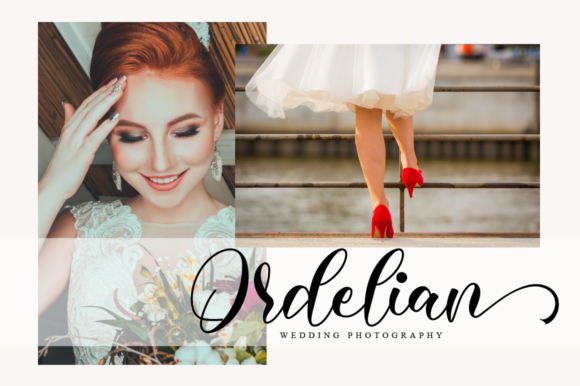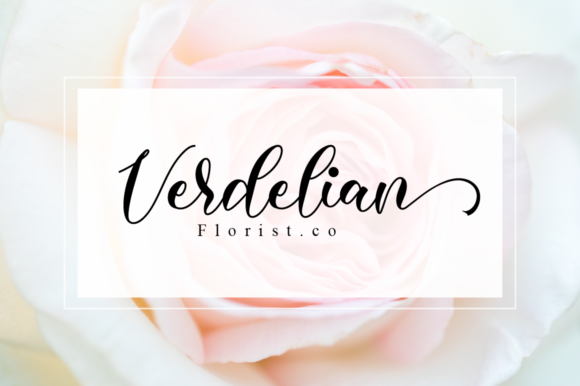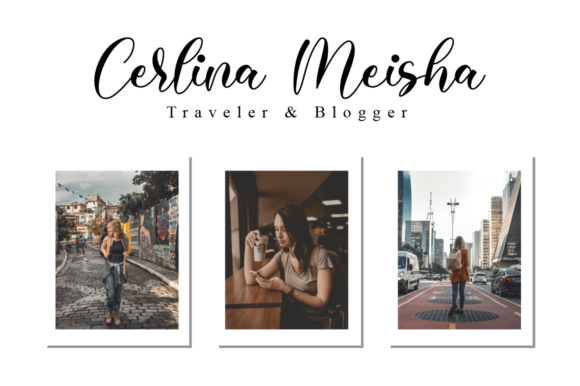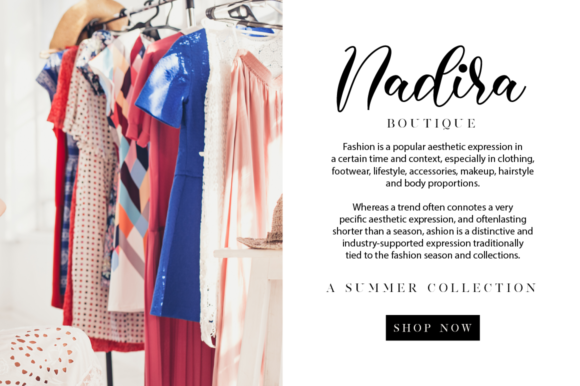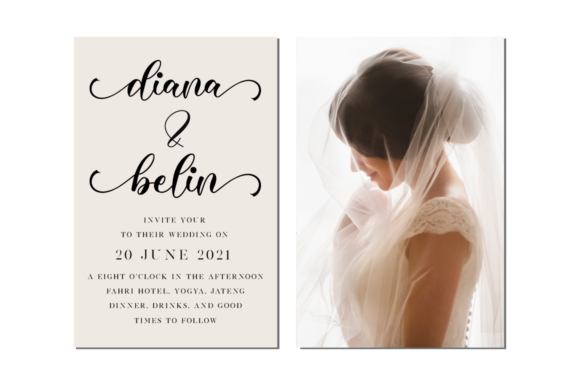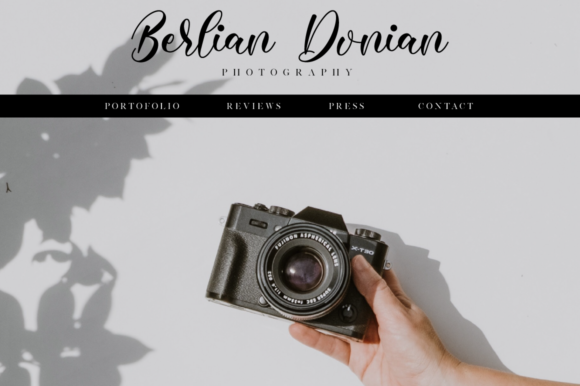
Gardenia Font: Elevate Your Designs with Elegance and Sophistication
Are you looking for a font that can add a touch of elegance and sophistication to your designs? Look no further than the Gardenia font. This beautiful, handwritten font is perfect for designers and crafters who want to create stunning projects that stand out from the crowd. In this article, we’ll take a closer look at the Gardenia font, its features, and how you can use it to enhance the beauty of your projects.
What is Gardenia Font?
Gardenia is an elegant and flowing handwritten font that is perfect for a variety of design projects. It is PUA encoded, which means you can access all of the glyphs and swashes with ease. This font features a varying baseline, smooth lines, gorgeous glyphs, and stunning alternates. The result is a beautiful, sophisticated font that is not too thin and not too thick, but balanced and varied.
Key Features of Gardenia Font
So, what makes Gardenia font so special? Here are some of its key features:
- PUA Encoding: Gardenia font is PUA encoded, which means you can access all of the glyphs and swashes with ease. This makes it easy to use and customize the font to suit your needs.
- Varying Baseline: The font features a varying baseline, which gives it a natural, handwritten look.
- Smooth Lines: The lines in Gardenia font are smooth and flowing, which makes it perfect for creating elegant and sophisticated designs.
- Gorgeous Glyphs: The font comes with a range of gorgeous glyphs and stunning alternates, which can be used to add a touch of elegance and sophistication to your designs.
- Balanced and Varied: Gardenia font is not too thin and not too thick, but balanced and varied, making it perfect for a variety of design projects.
How to Use Gardenia Font in Your Designs
Gardenia font is perfect for a variety of design projects, including:
- Branding and Packaging: Use Gardenia font to create elegant and sophisticated branding and packaging designs.
- Wedding and Event Design: This font is perfect for creating beautiful wedding and event designs, such as invitations, menus, and programs.
- Stationery and Paper Crafts: Gardenia font is great for creating beautiful stationery and paper crafts, such as cards, journals, and planners.
- Digital Design: Use Gardenia font to create stunning digital designs, such as social media graphics, blog headers, and website designs.
Tips for Getting the Most Out of Gardenia Font
Here are some tips for getting the most out of Gardenia font:
- Experiment with Different Sizes and Colors: Try out different sizes and colors to see what works best for your design.
- Use the Glyphs and Swashes: Don’t be afraid to experiment with the glyphs and swashes to add a touch of elegance and sophistication to your design.
- Pair it with Other Fonts: Try pairing Gardenia font with other fonts to create a unique and interesting design.
In conclusion, Gardenia font is a beautiful and elegant handwritten font that is perfect for designers and crafters who want to create stunning projects. With its PUA encoding, varying baseline, smooth lines, gorgeous glyphs, and stunning alternates, Gardenia font is sure to enhance the beauty of your projects. Whether you’re working on branding and packaging, wedding and event design, stationery and paper crafts, or digital design, Gardenia font is a great choice.